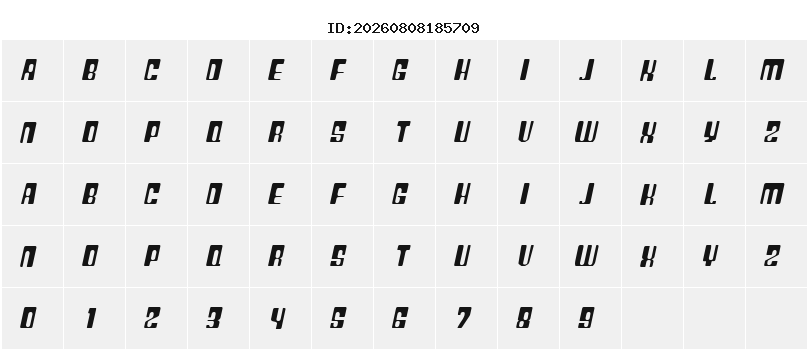
Plastic No.20 Preview
• Font Name: Plastic No.20
• Designer: Melinda Windsor
About Plastic No.20.ttf
Plastic No.20.ttf is a modern, elegant sans-serif font designed for ultimate readability and visual harmony. Perfect for branding, headlines, web design, and print materials.